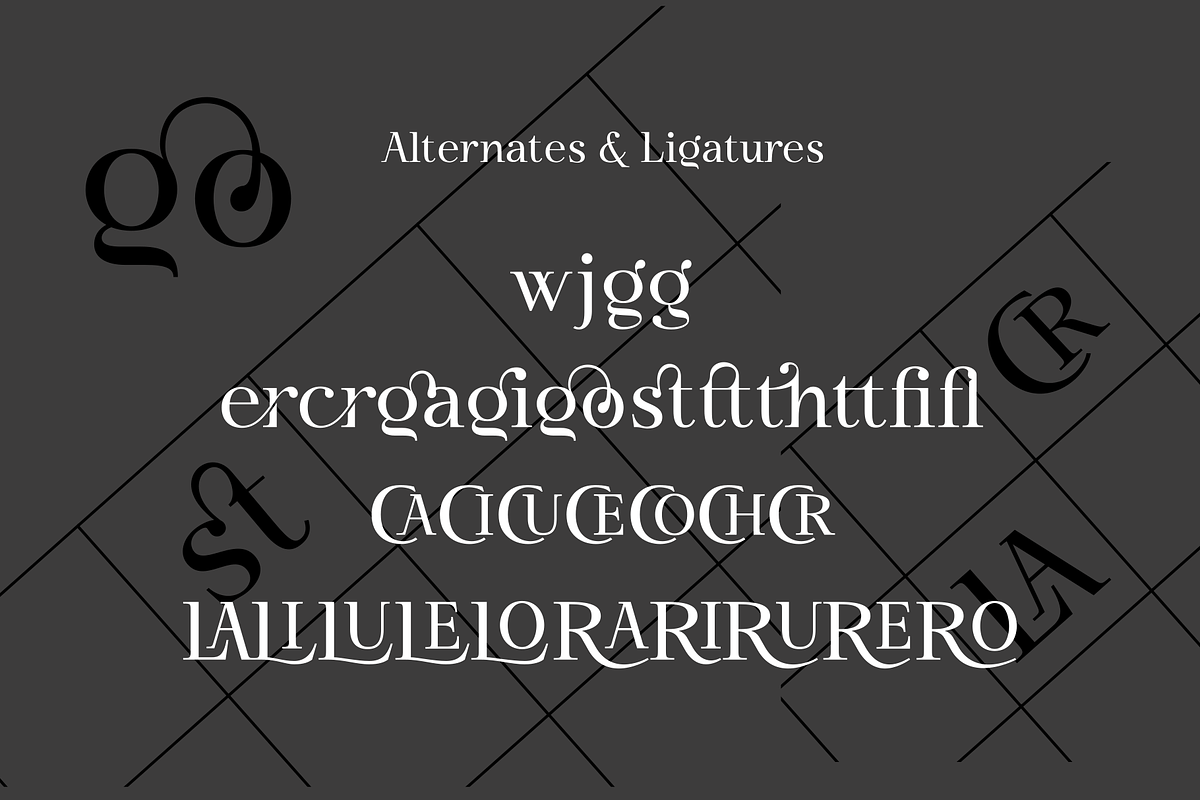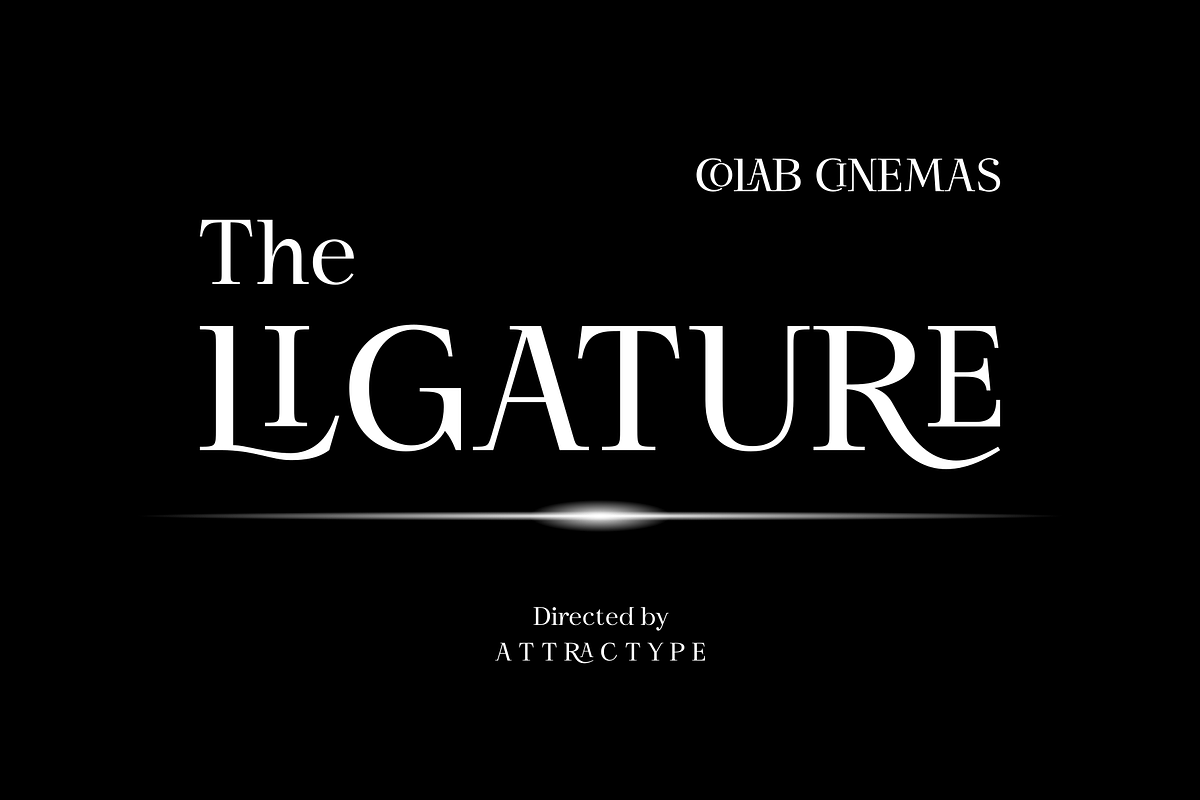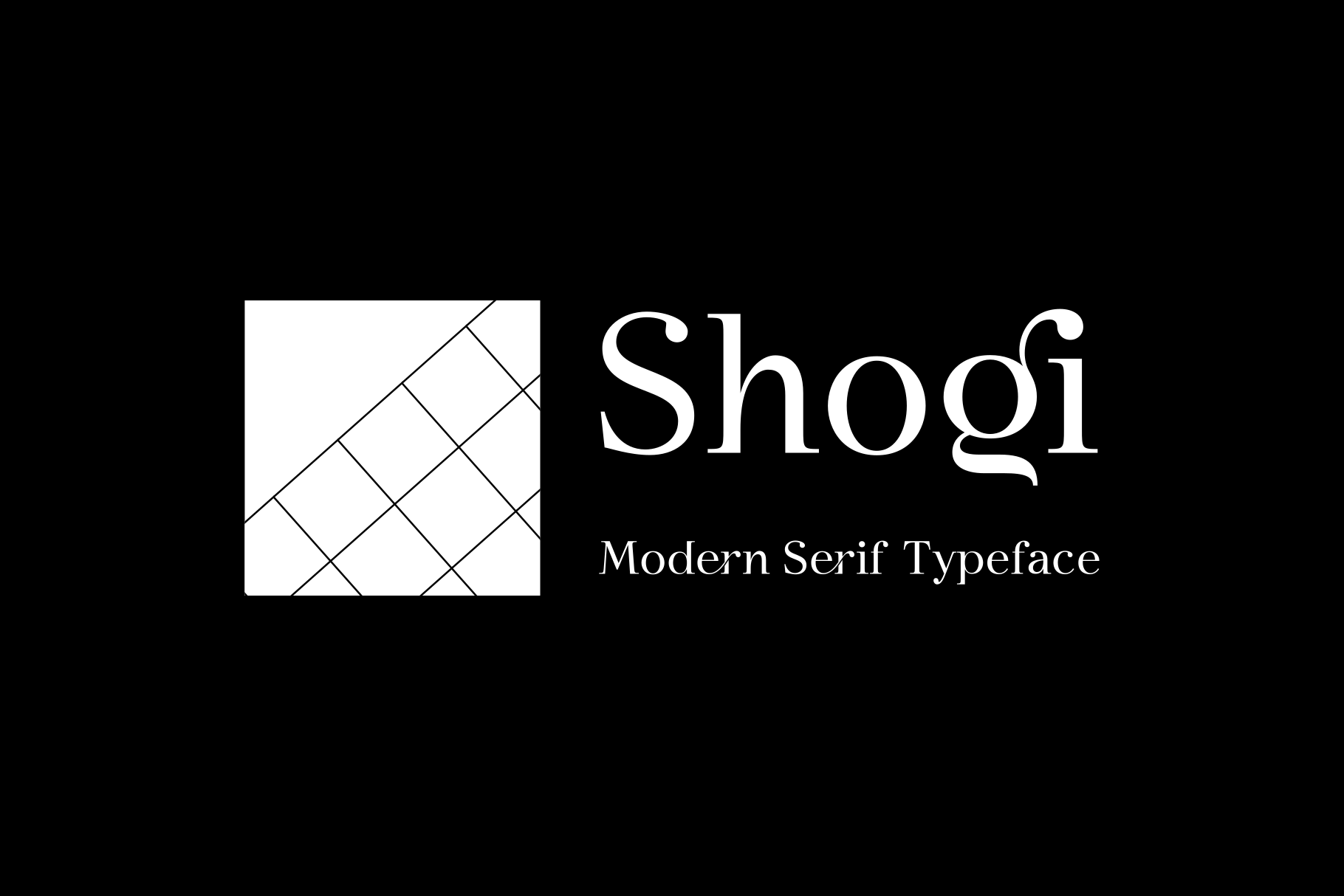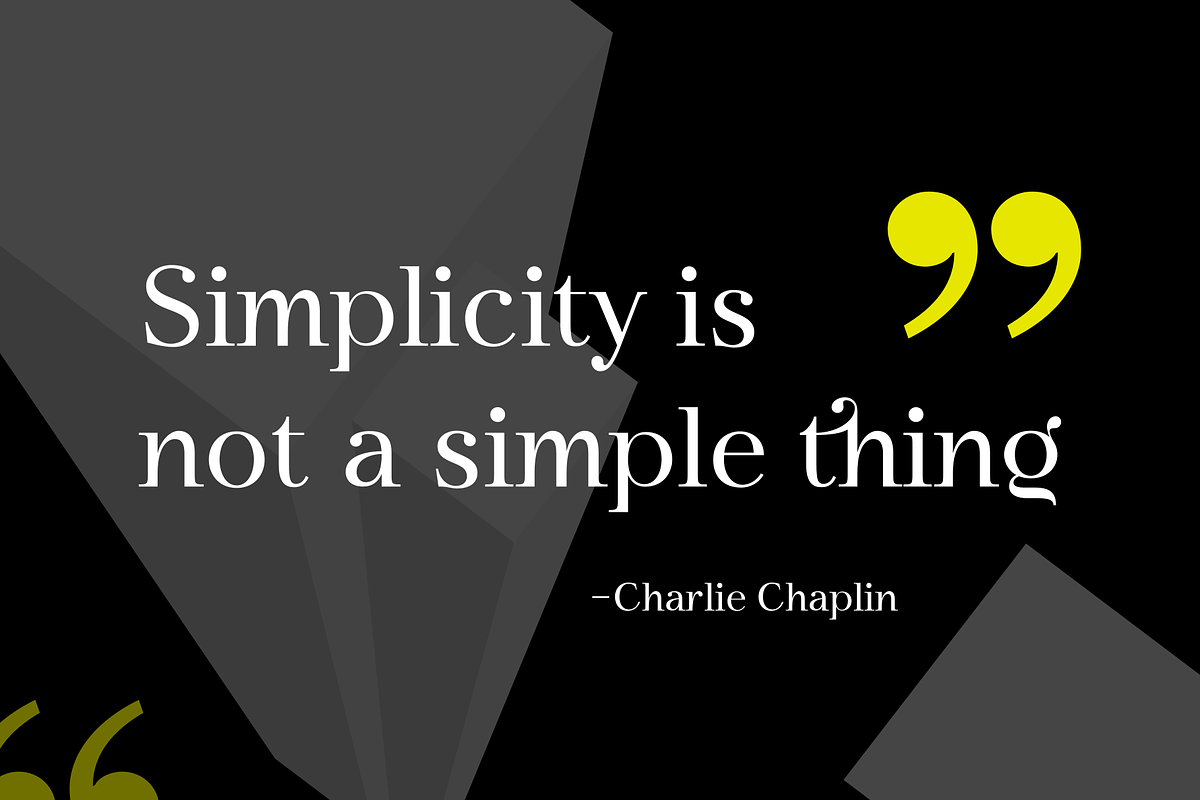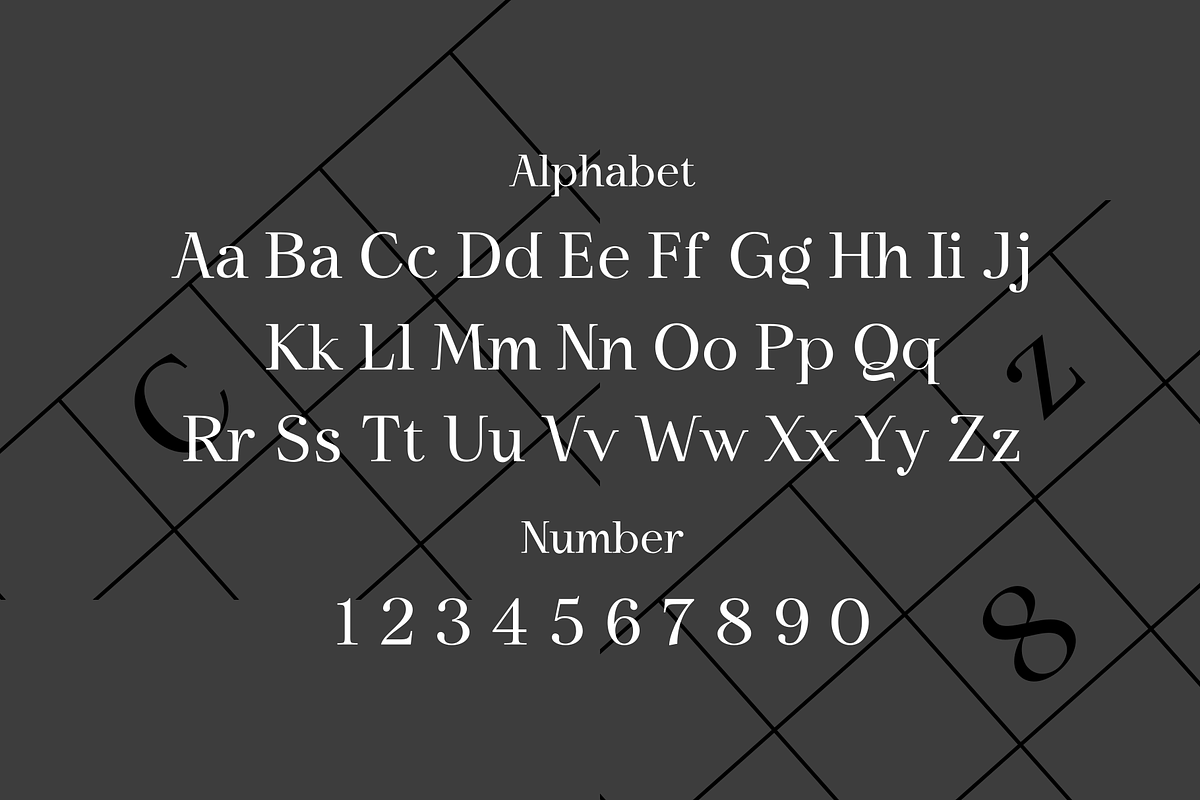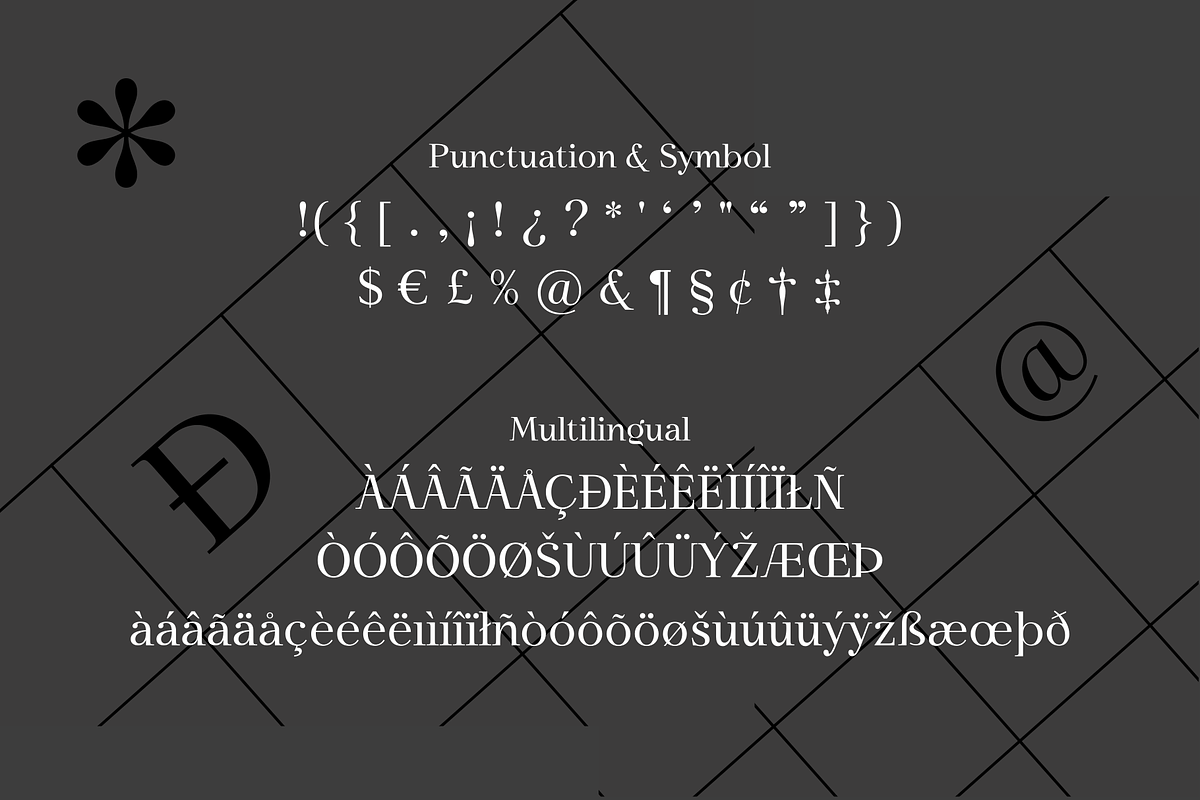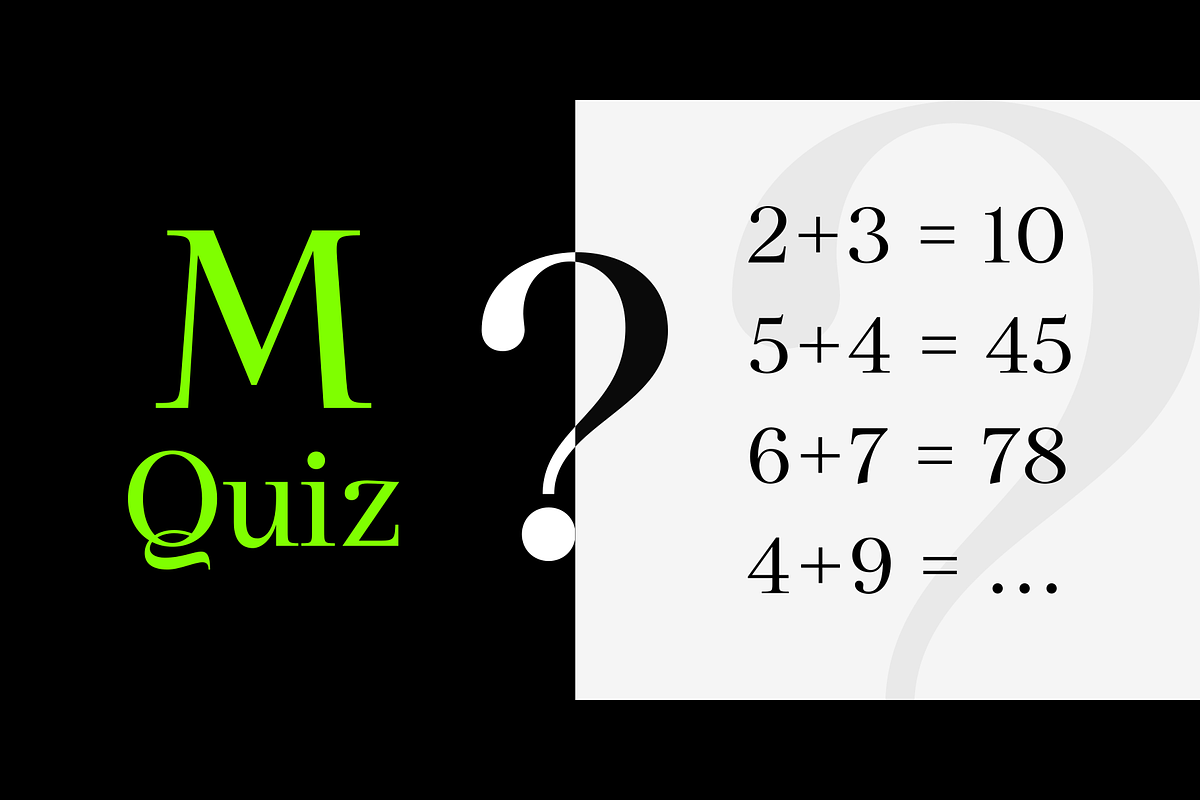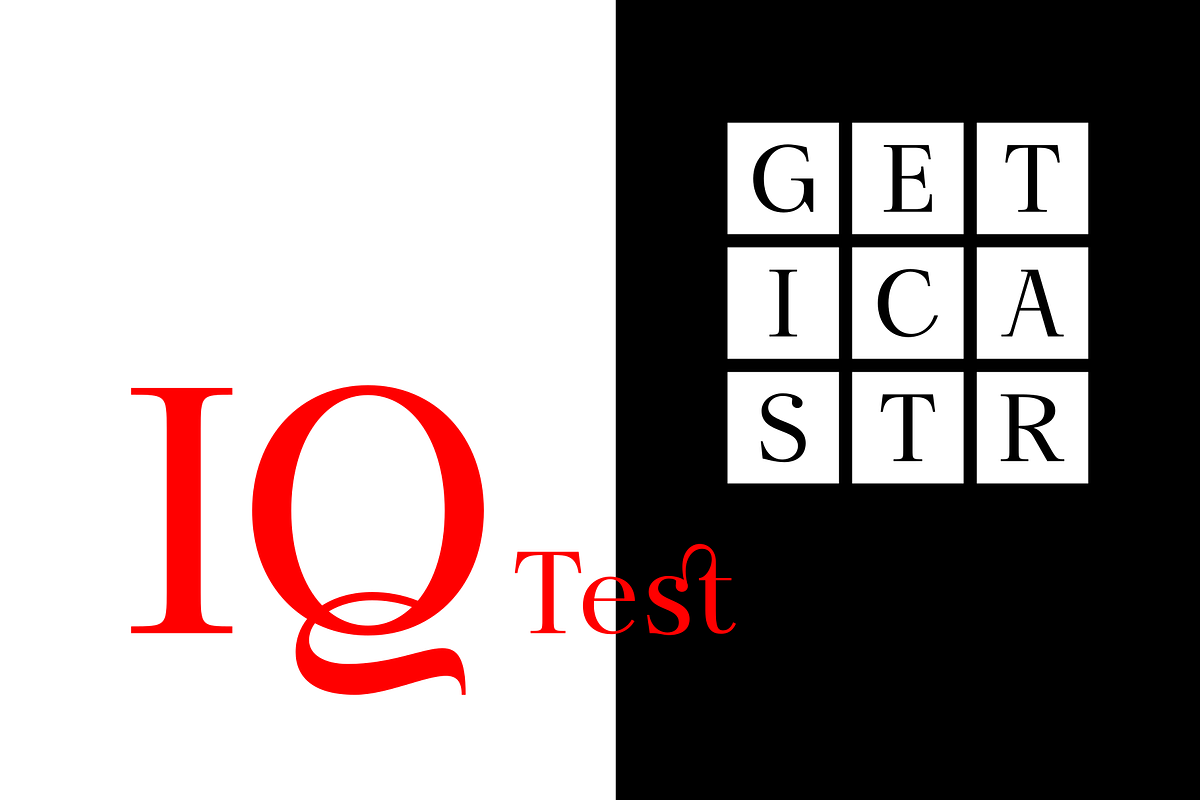
Shogi - Modern Serif Typeface
Attractype presents Shogi, a beautiful modern serif font that has sharp shapes and high contrast. Perfect for displaying easy-to-read text with an attractive appearance.
Shogi comes with some beautiful ligatures that make your lettering projects even more special.